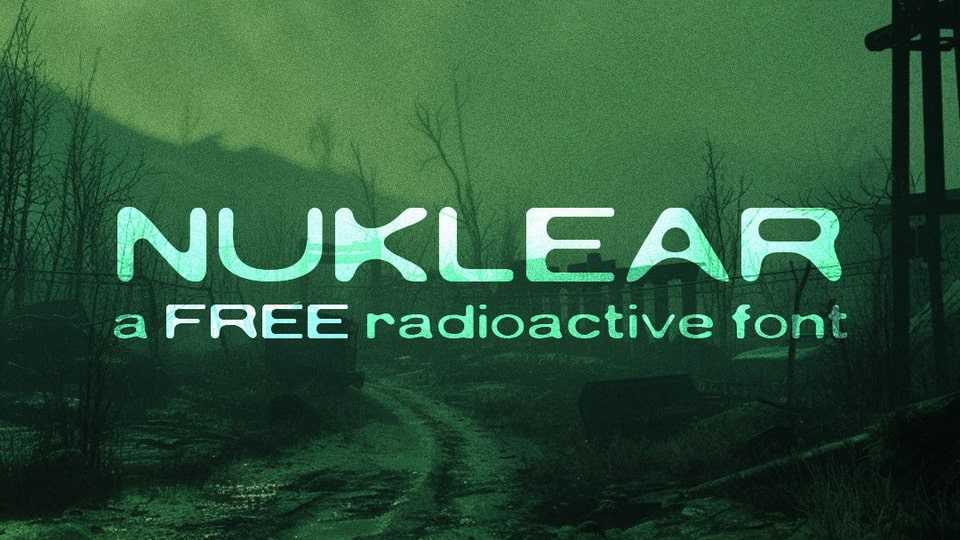
Download Nuklear font, a grungy, radioactive-inspired typeface that channels the chaotic energy of a post-apocalyptic world. Nuklear font features mutated, jagged edges and a distressed aesthetic.
Designer: Archie Griffiths